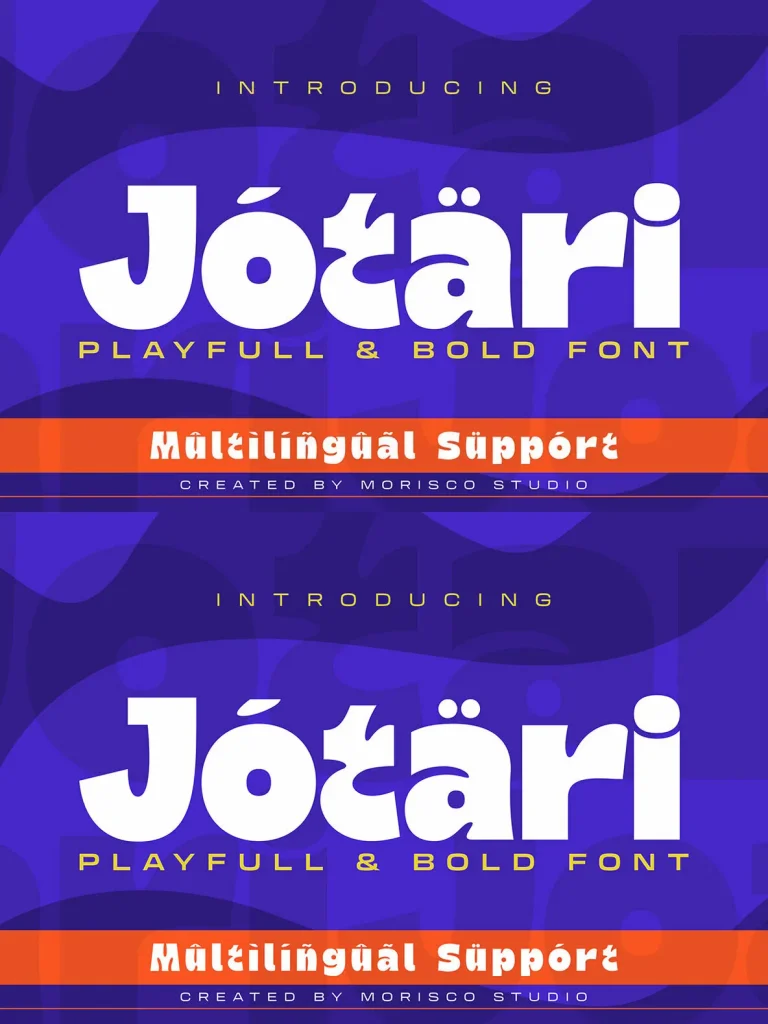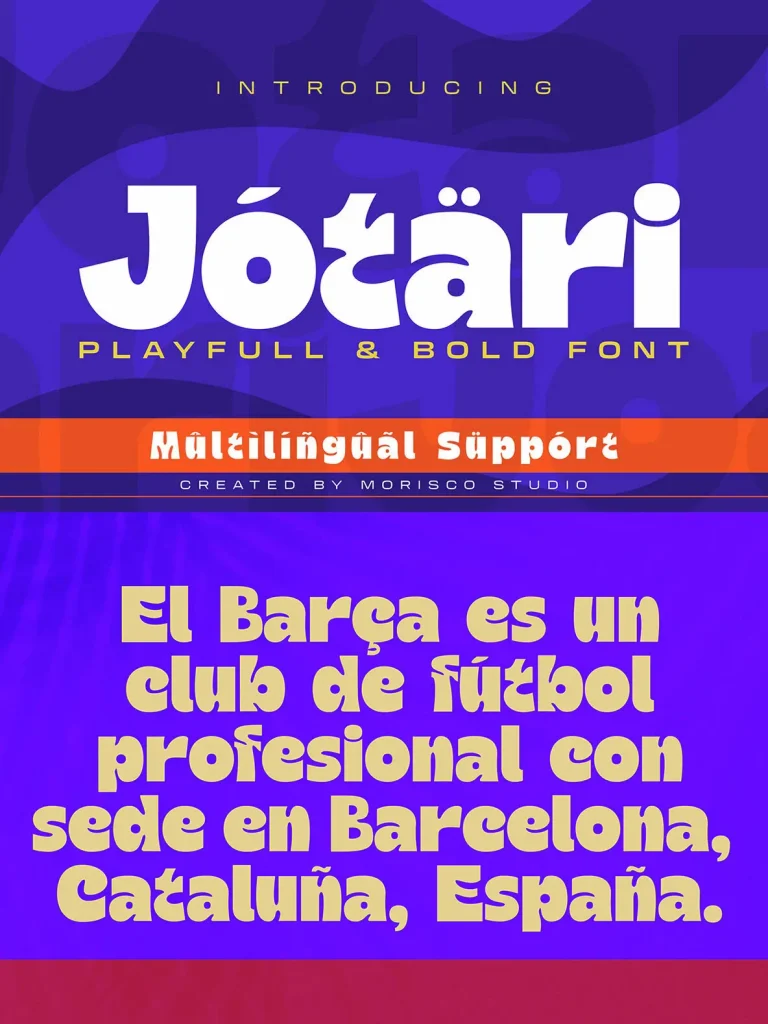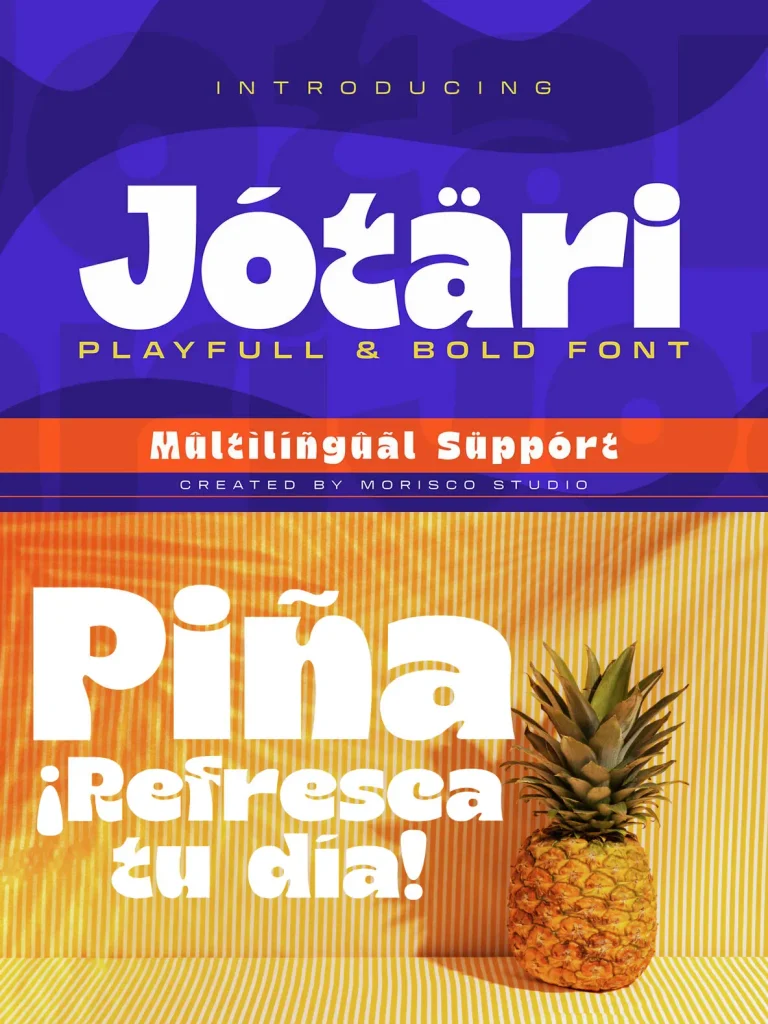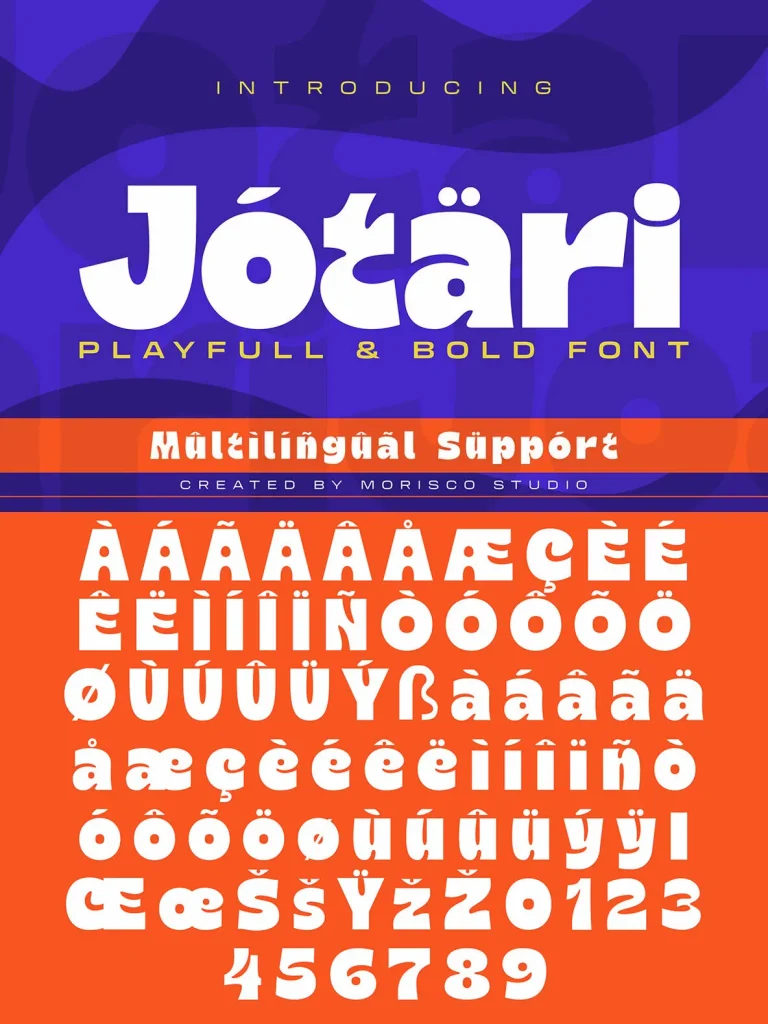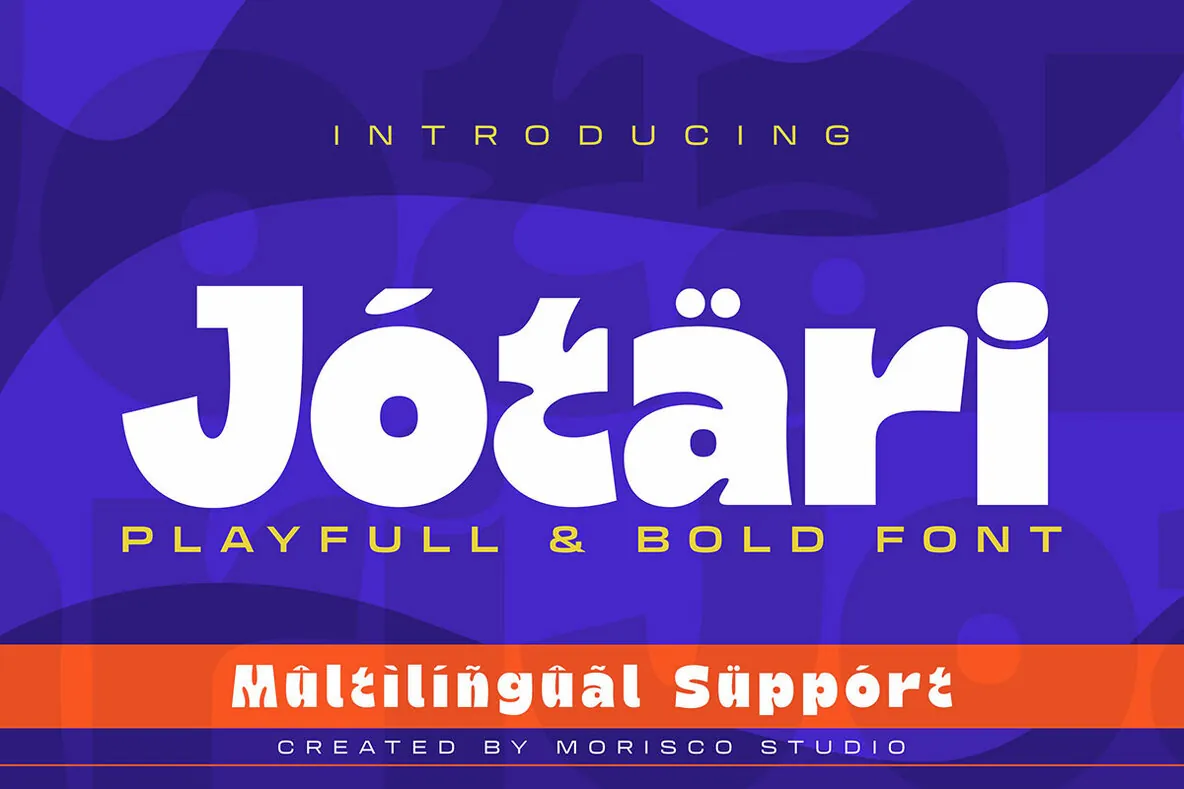
Jotari — Bold Playful Character
Jotari is a playful, bold font with a distinctive character, designed by Morisco Studio. Its confident forms make it well-suited for headlines and display-led design, where a strong typographic voice matters.
This typeface fits a wide range of creative projects, including branding, print templates, logos, and more. Jotari brings a lively presence to visual identities while keeping the structure clear and usable for professional design work.
Features
Uppercase & Lowercase
Symbols & Punctuation
Multilingual